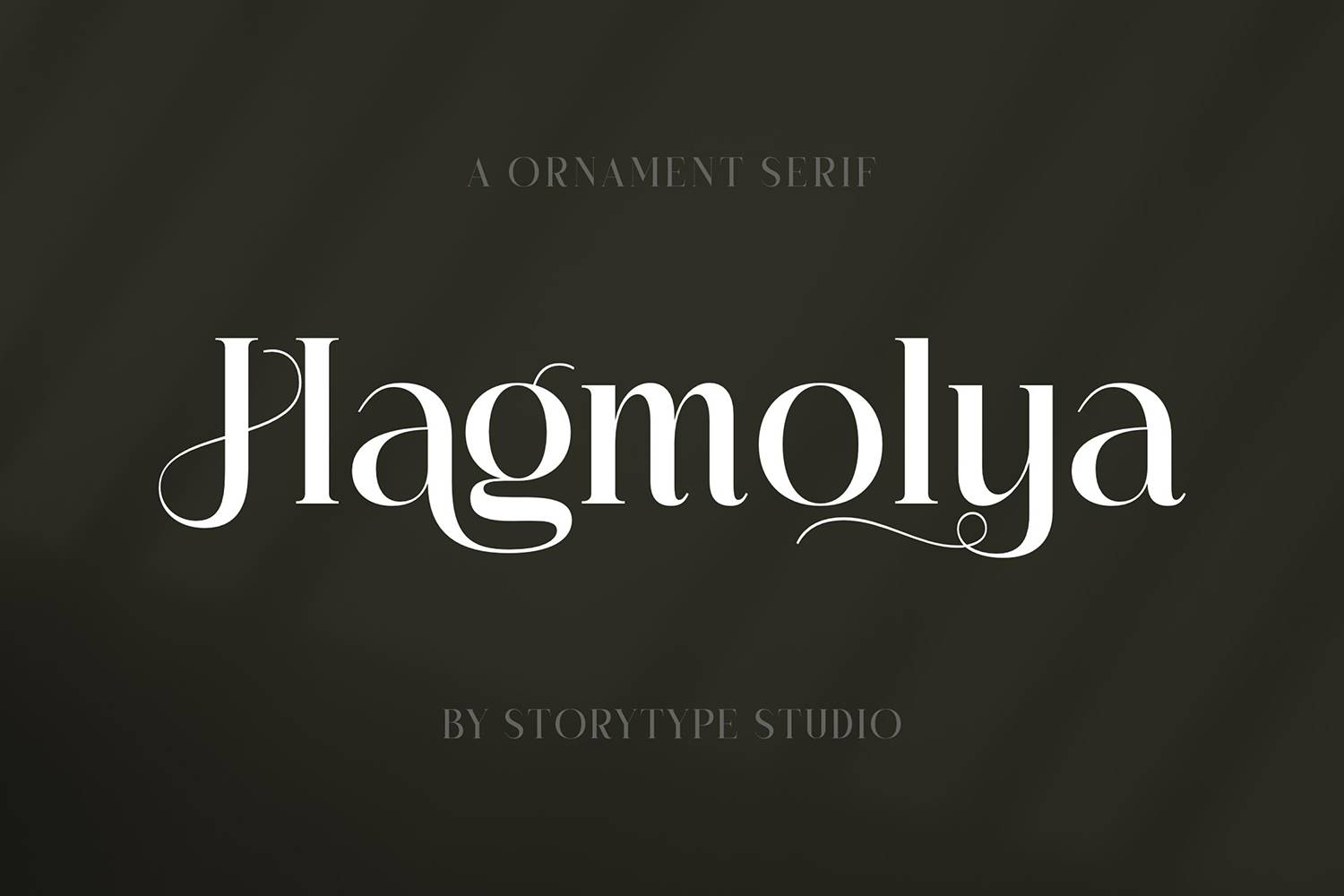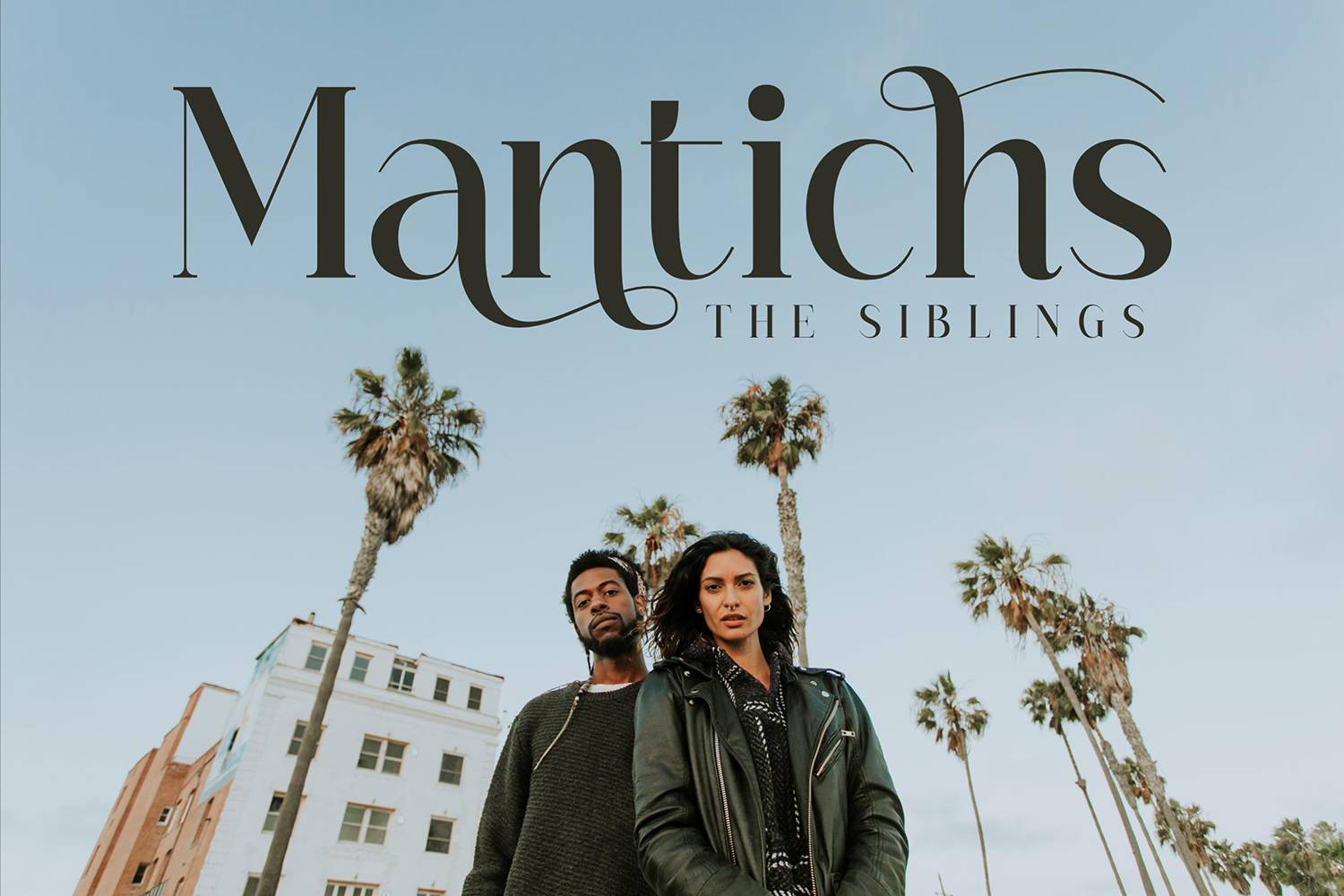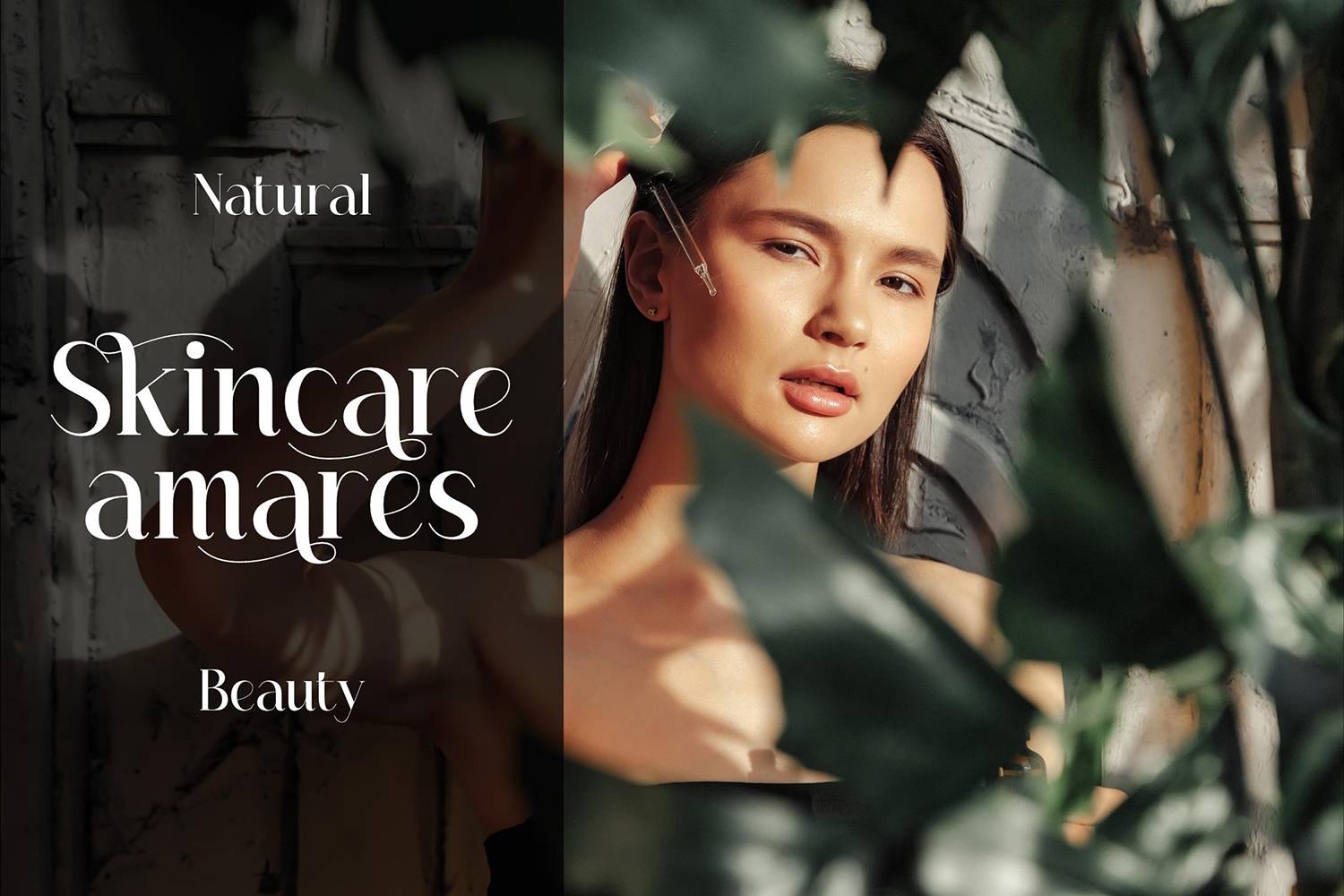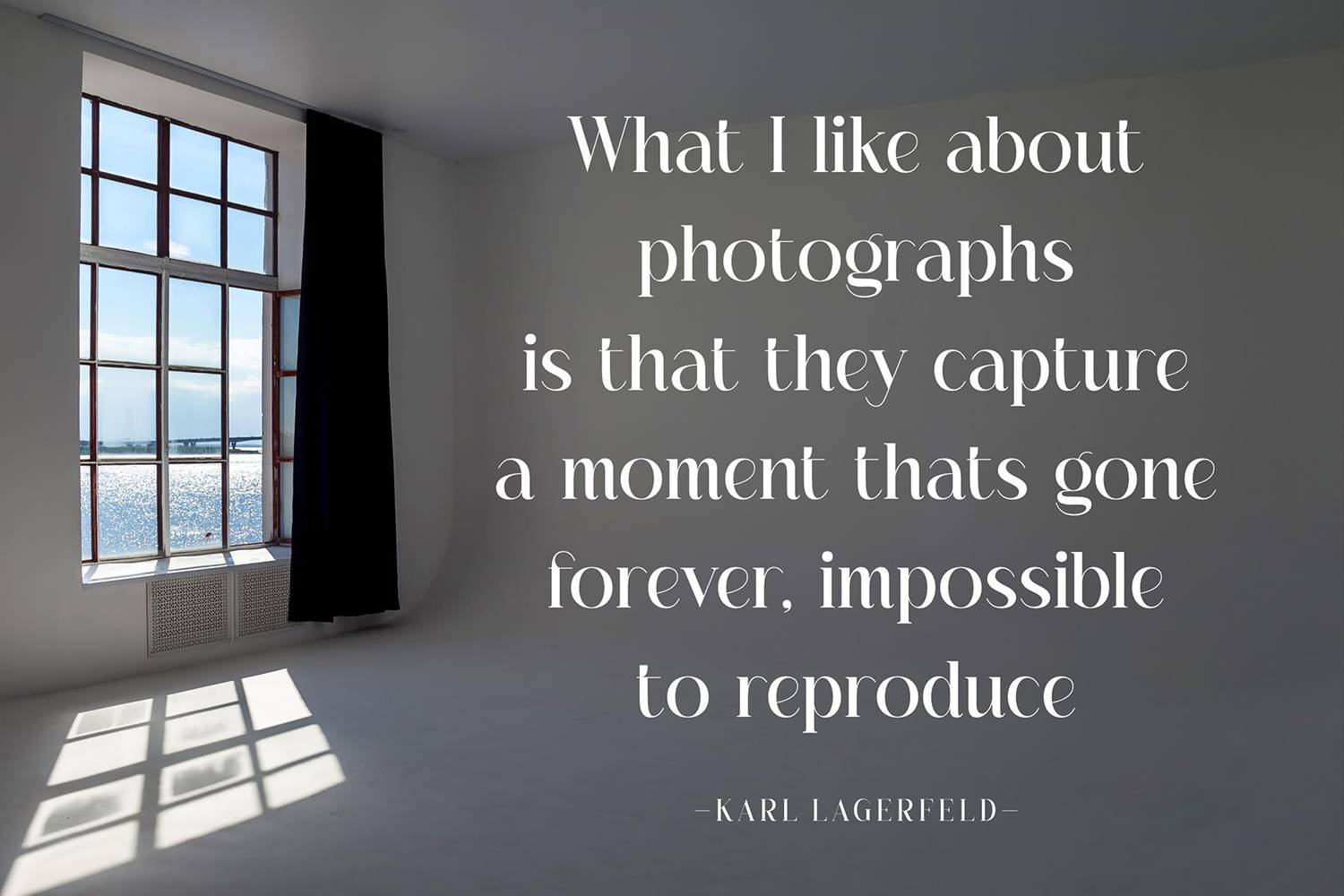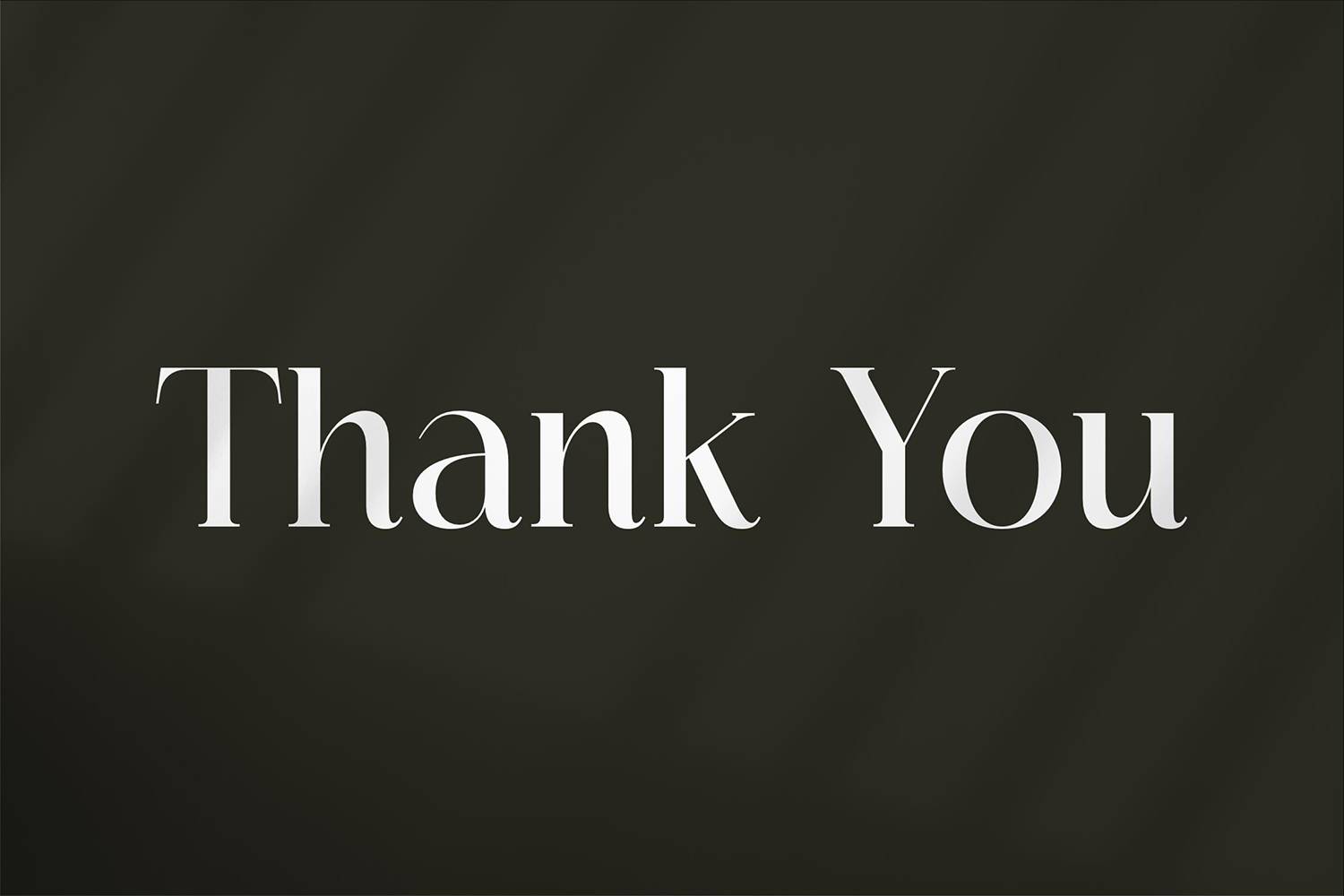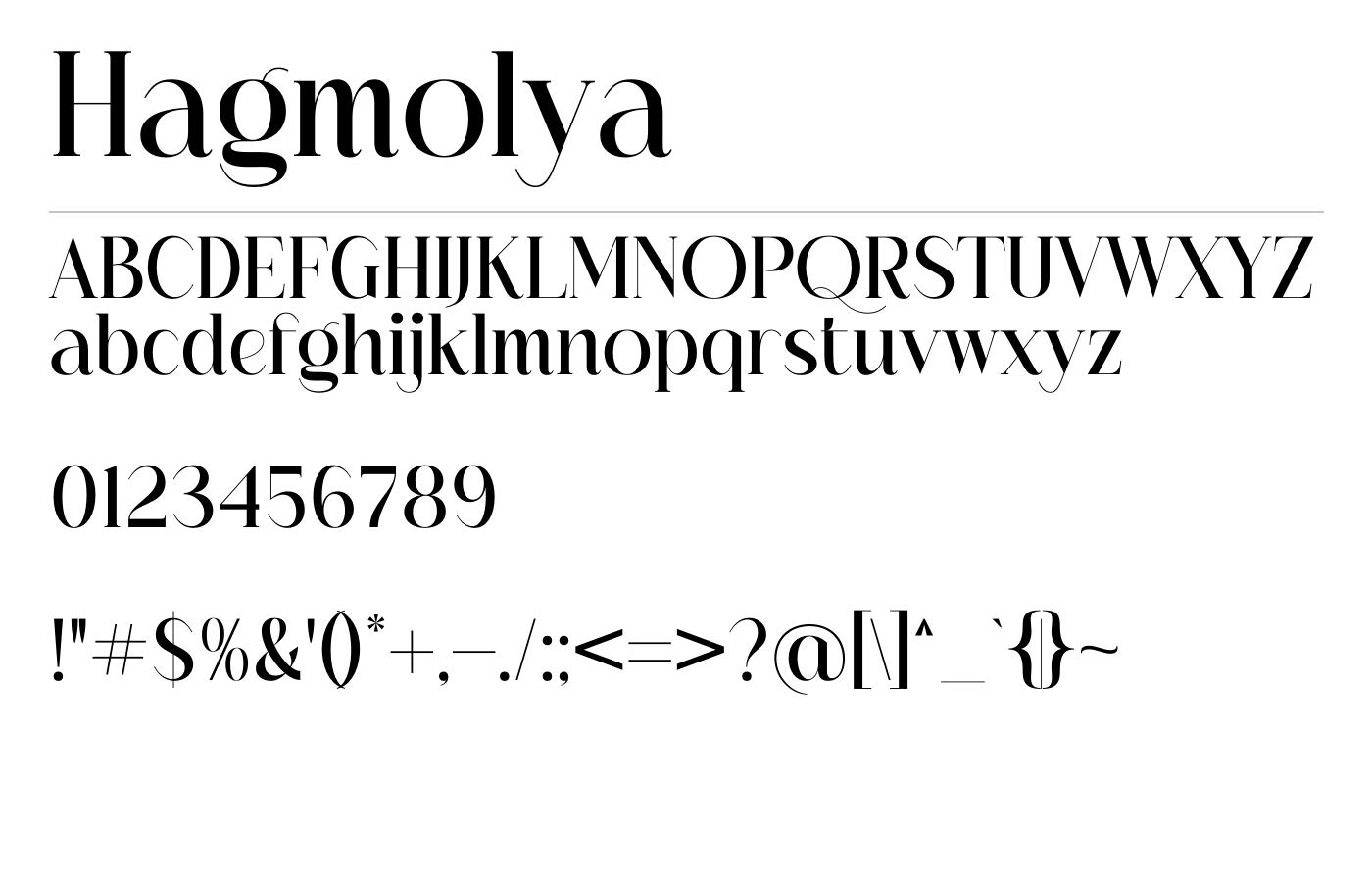
Hagmolya is a stylish serif font that combines high contrast strokes with elegant, delicate curves, giving it a refined and sophisticated look. Its tall, narrow letterforms with distinctive swashes and smooth serifs make it ideal for luxury branding, fashion editorials, and high-end packaging where a touch of classic elegance is desired. This font works beautifully in headlines and logos that seek to convey a sense of modern elegance with a timeless charm.
Hagmolya Font